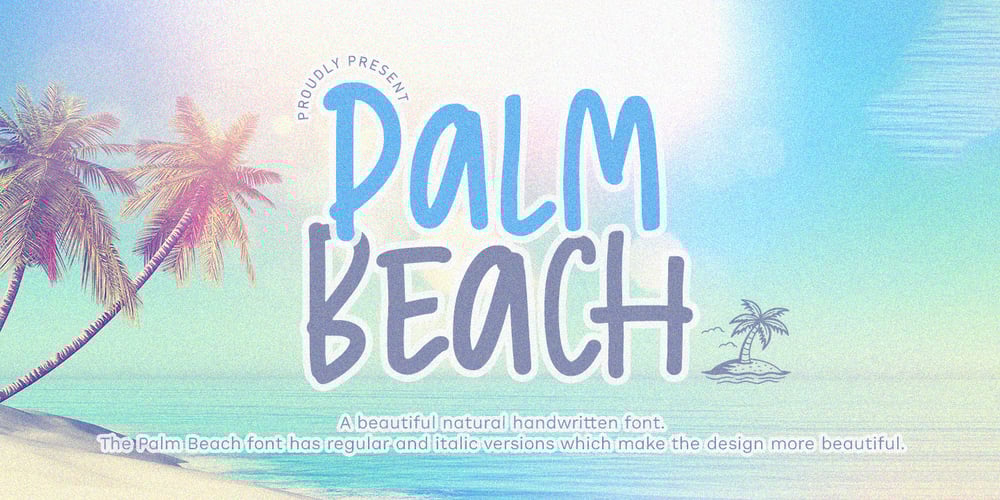
Palm Beach Font Family was designed by Muhammad Fajar and published by Lucky Type. Palm Beach contains 2 styles and family package options. Let me introduce Palm Beach newest handwritten font. The Palm Beach font has several ligatures that will make the text look more natural and stand out.Palm Beach has regular and angled versions that make your design more prominent and beautiful.